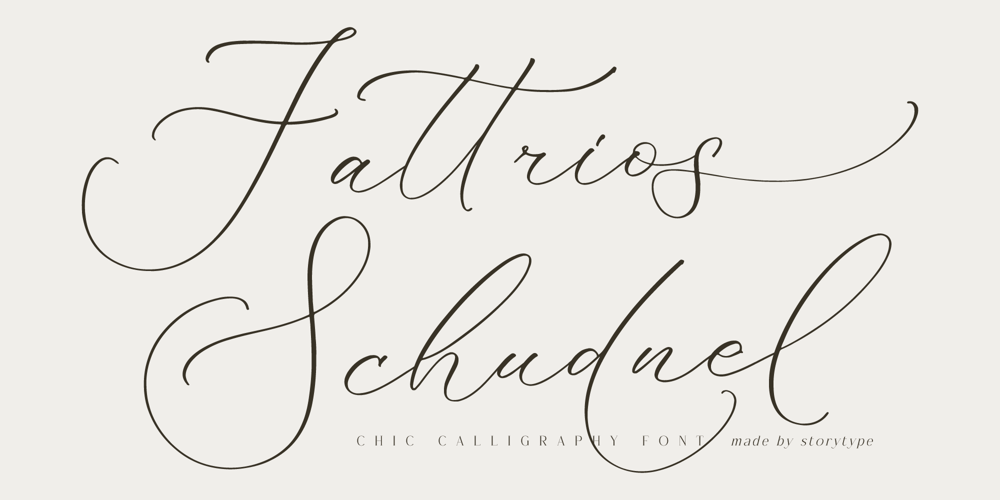
Fattrios Schudnel
Fattrios Schudnel font
Fattrios Schudnel Font Family was designed by Heru Utama Putra and published by Letterena Studios. Fattrios Schudnel contains 2 styles and family package options. Fattrios Schudnel is a chic calligraphy script font with a unique style and modern look. This typeface is perfect for an elegant & luxury logo, book or movie title design, fashion brand, magazine, clothes, lettering, quotes, and so much more.